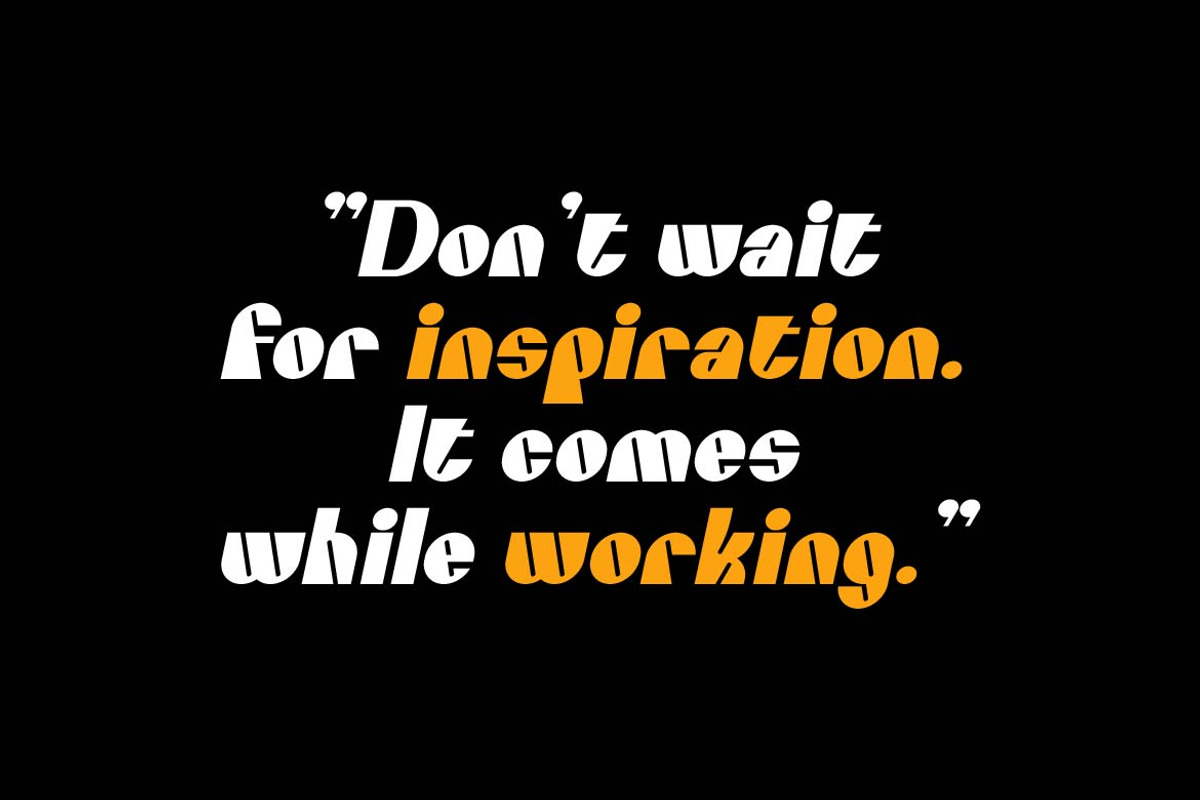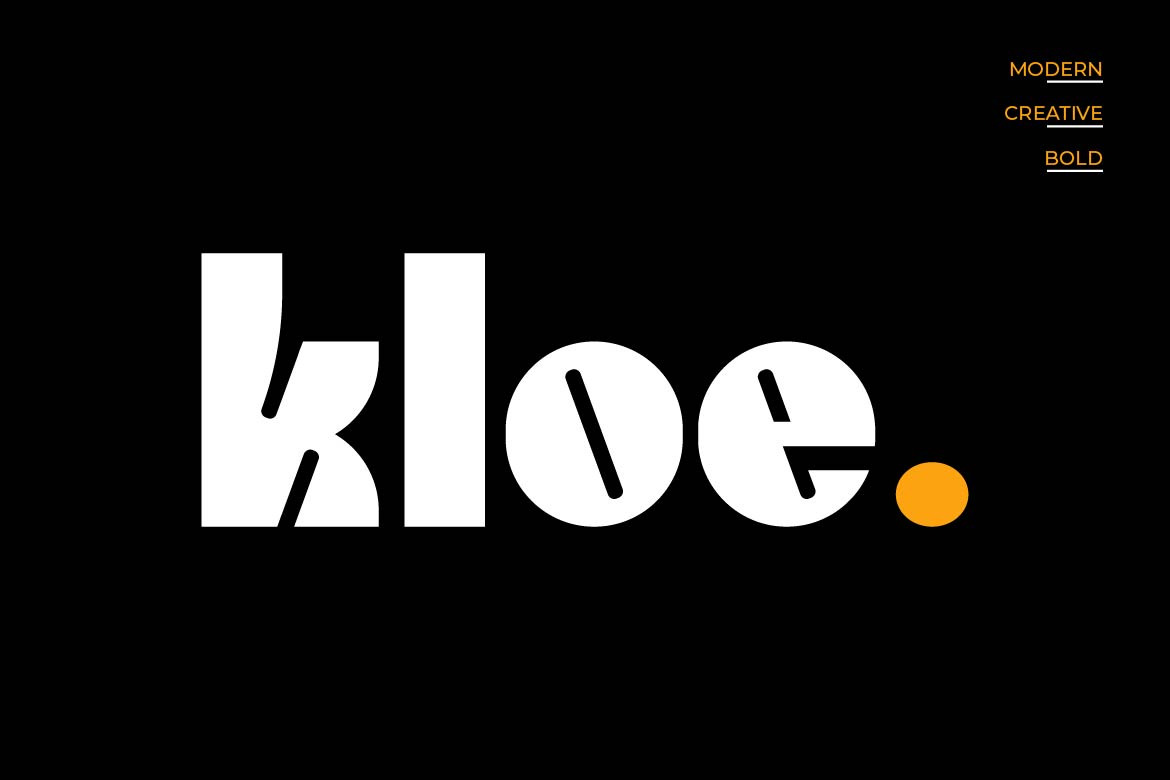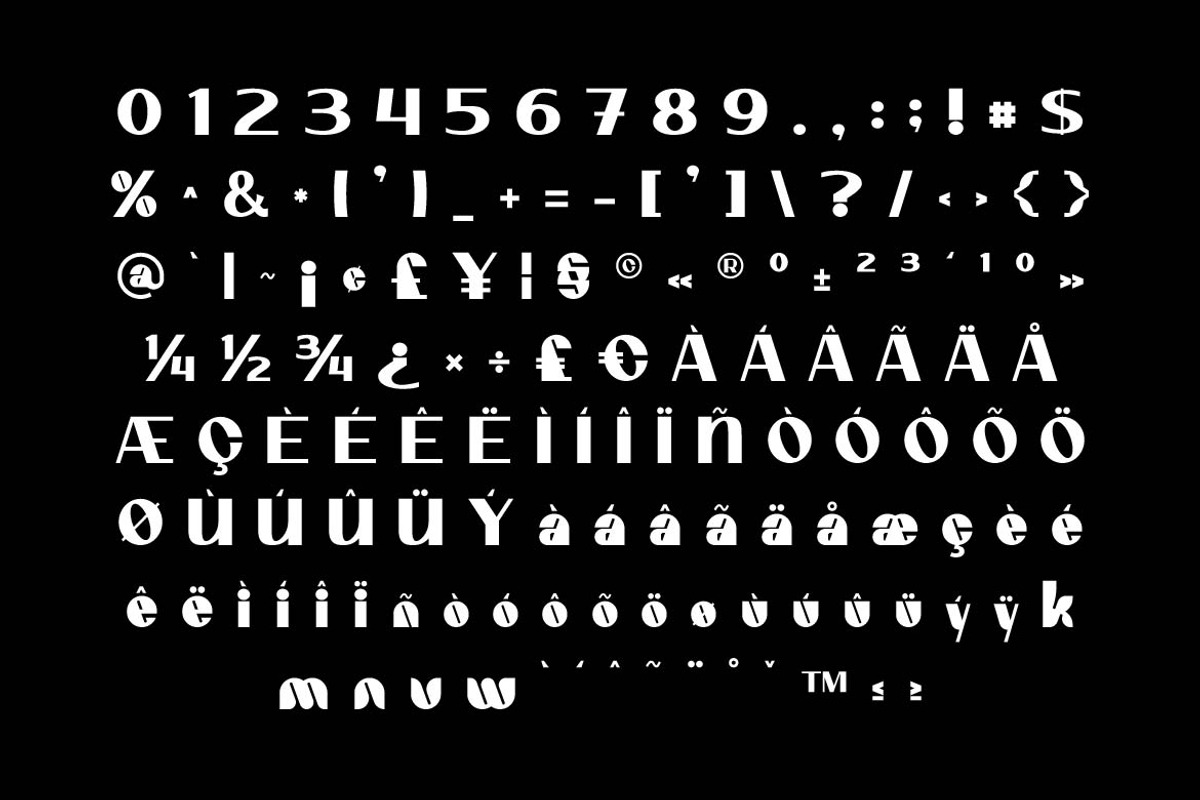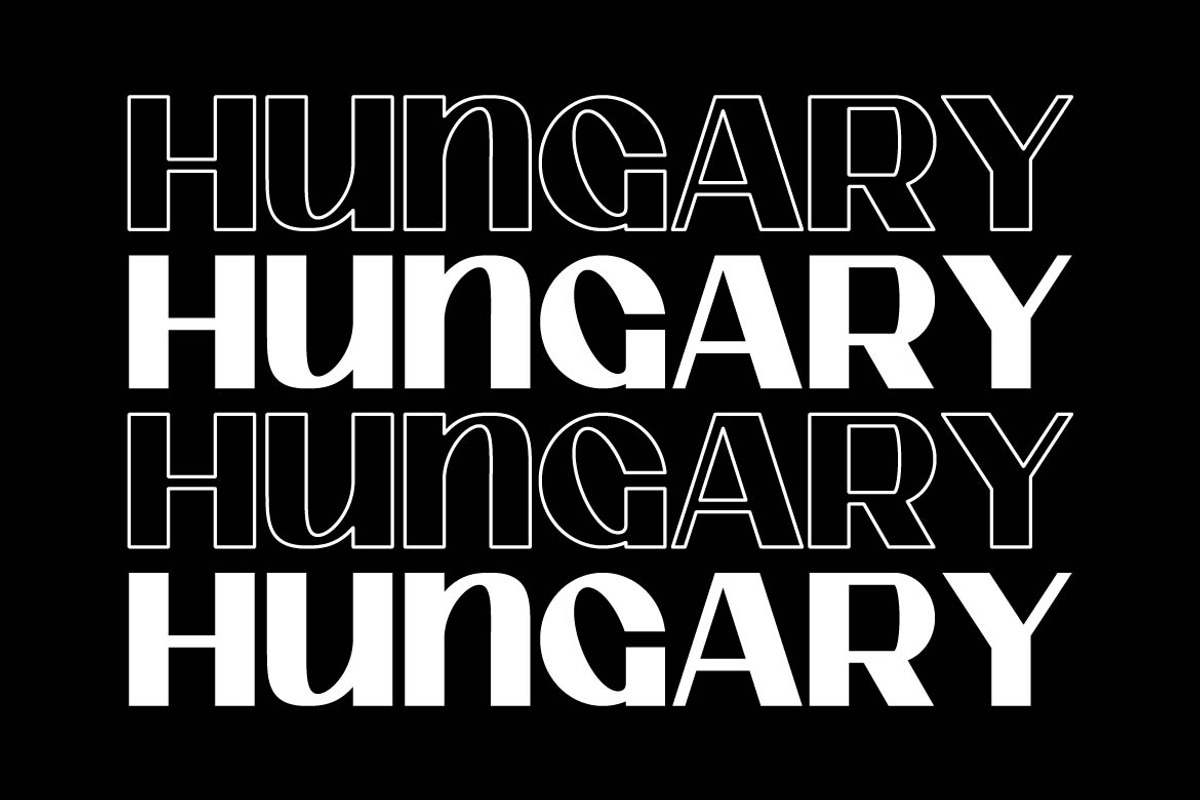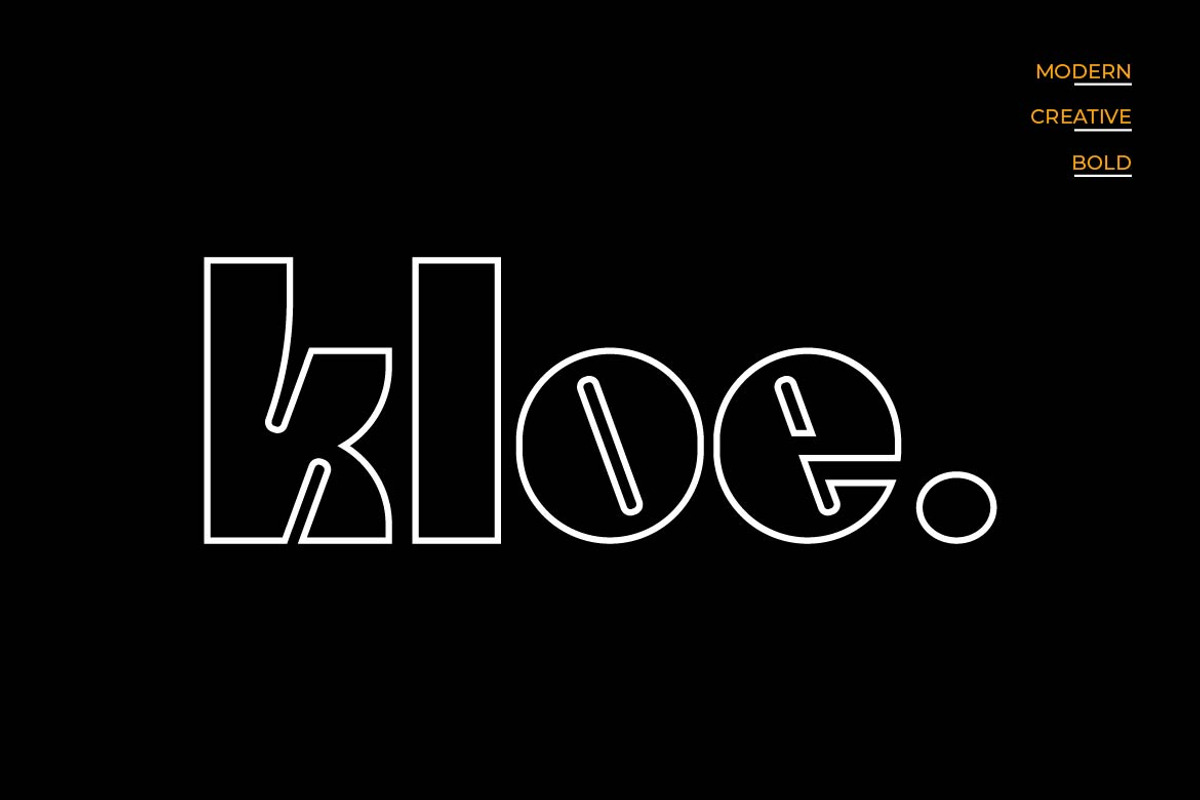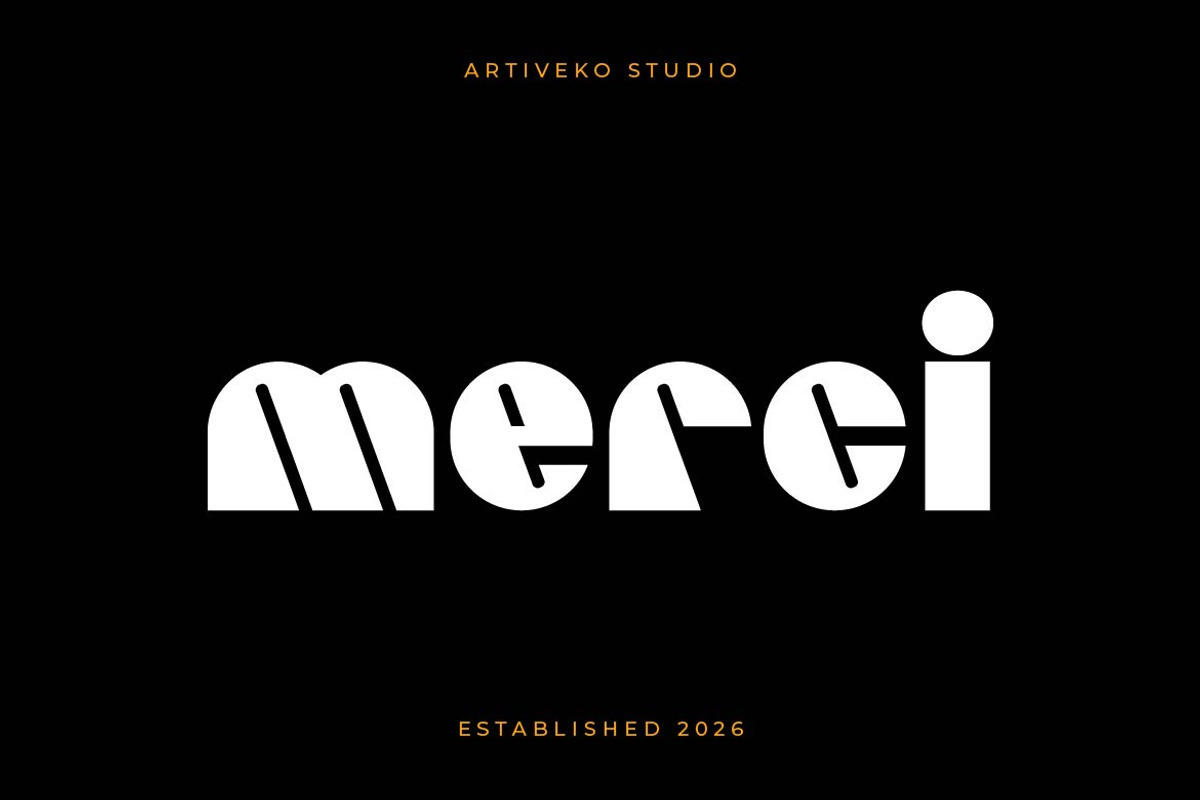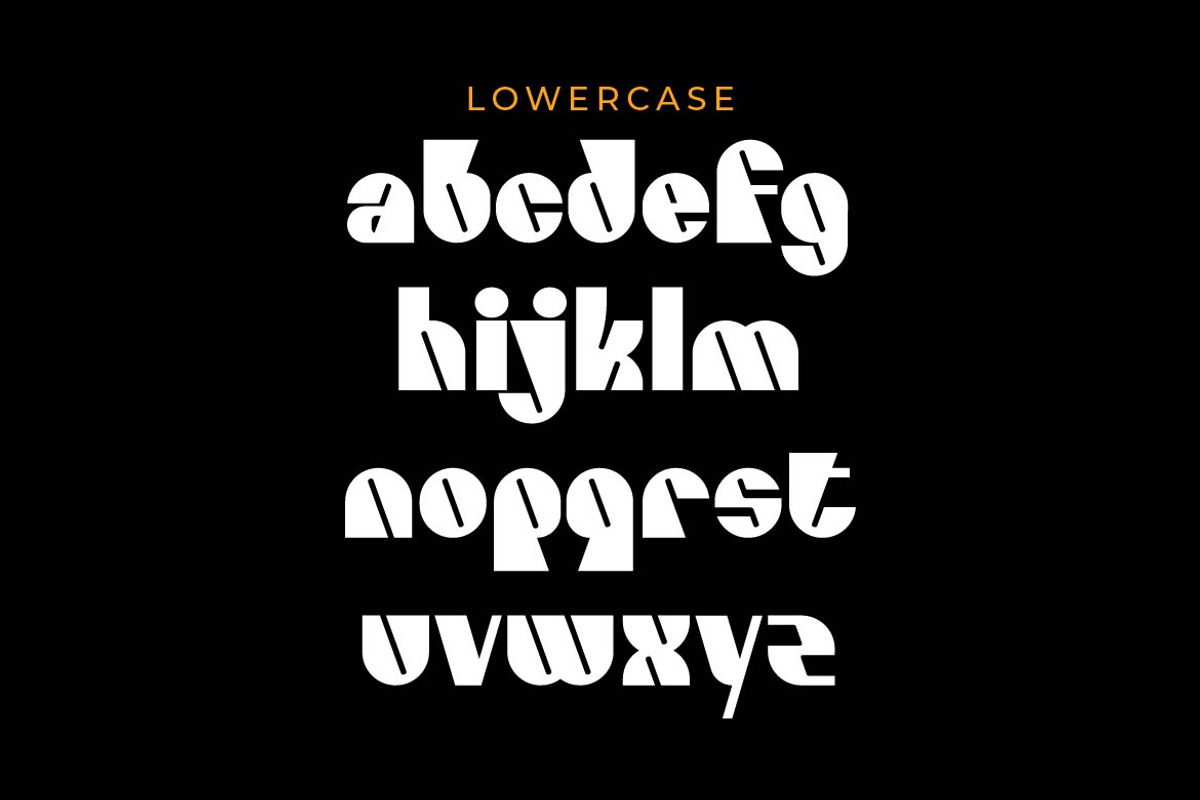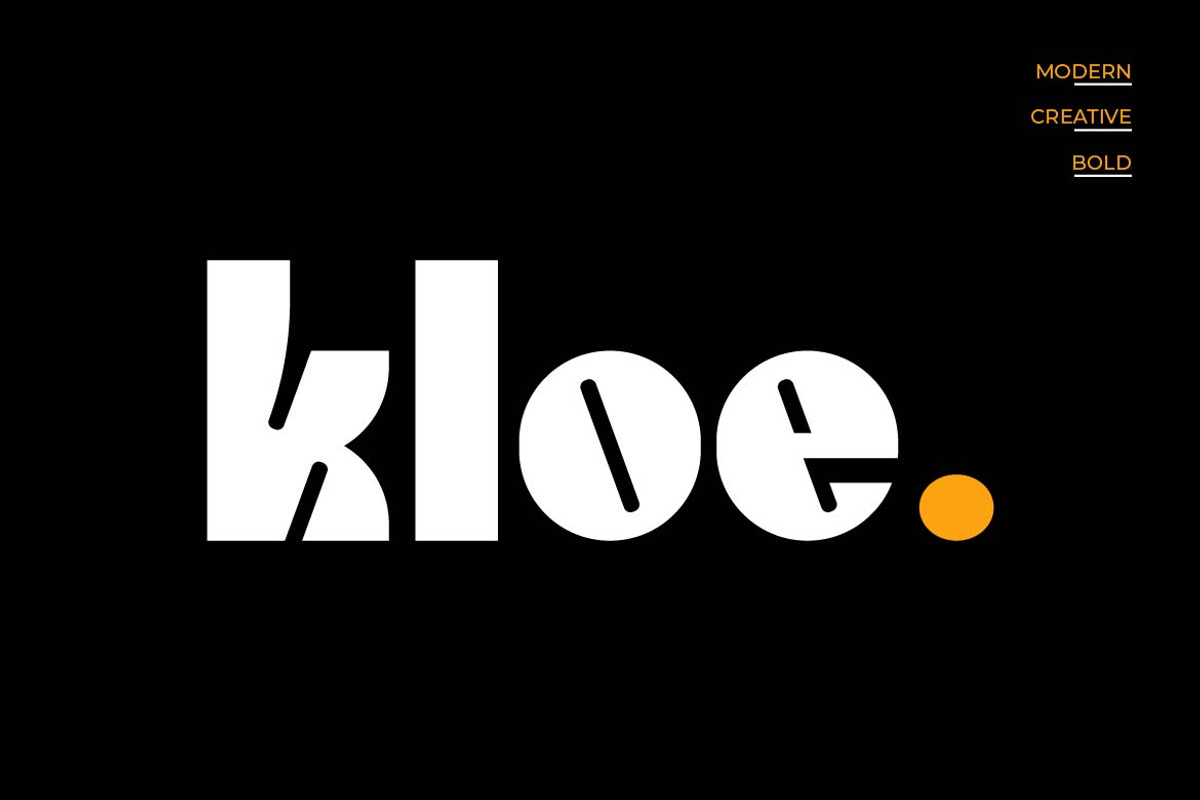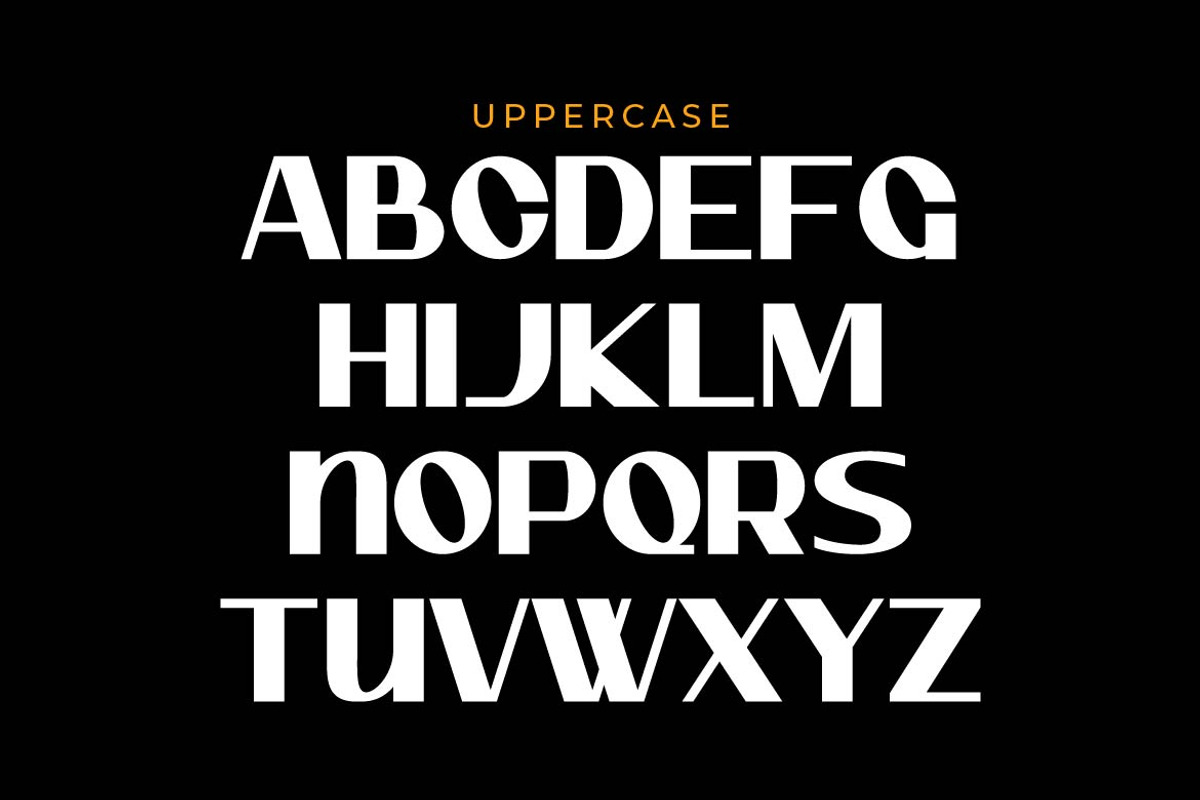
Kloe – Bold Display Font
Kloe is a bold display typeface designed to create strong, stylish, and modern visual impact. With solid letterforms, clean lines, and balanced proportions, Kloe delivers a confident presence that stands out in any design.